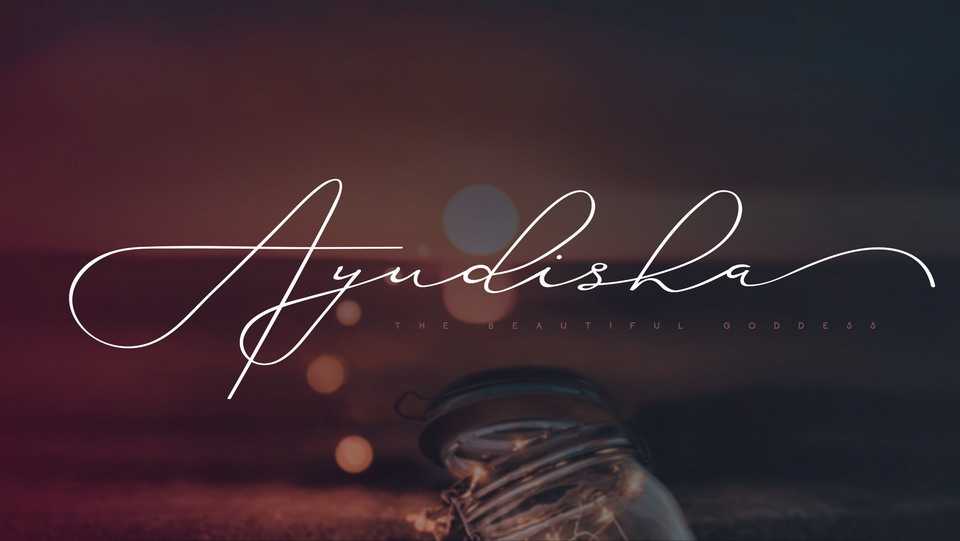
Download Ayudisha font, a stunning signature script. Ayudisha comes with 400+ glyphs with many features. It easy to use, clean, modern, elegant and stylish and yet still professional.
Designer: Ruangkerja